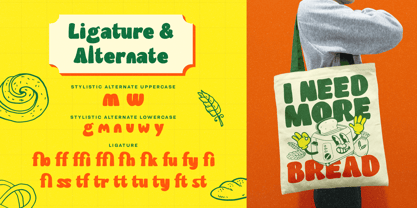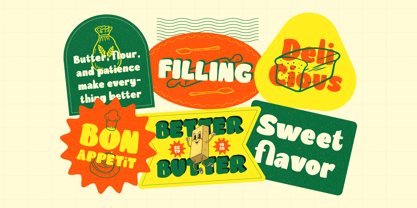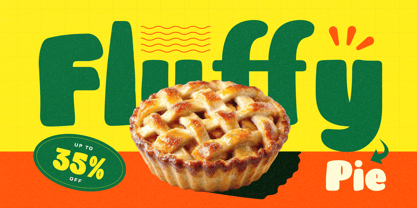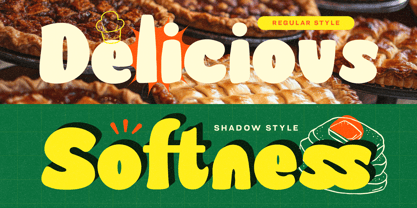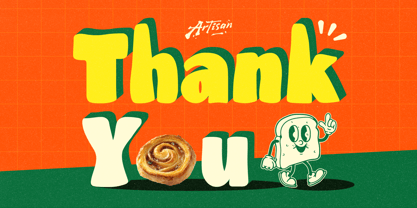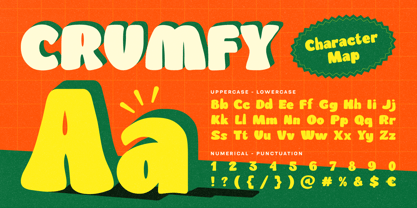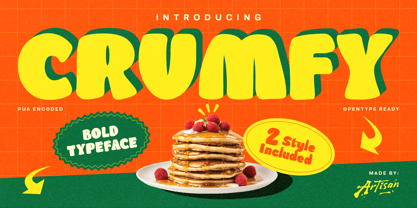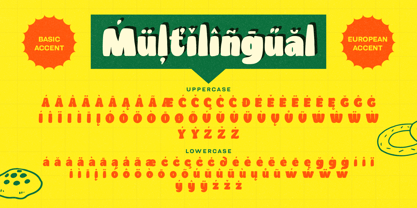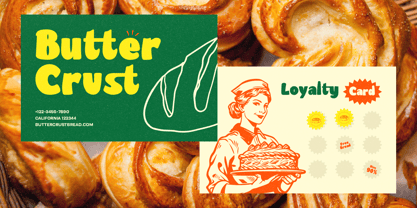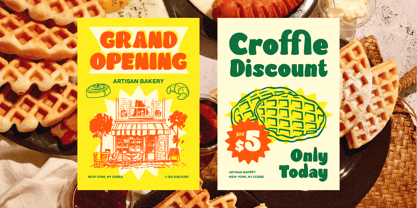
Crumfy
by Artisan Themes
The Crumfy Font Family was designed by Meidy Meichico and published by Artisan Themes. Crumfy contains 2 styles and family package options. More about this family
Crumfy is a bold, chunky display font with a soft and delicious personality. Inspired by artisan bakeries, warm pastries, and retro food packaging, this typeface brings a cheerful and appetizing feel to any design. With its thick curves and rounded shapes, Crumfy looks friendly, fun, and full of character. It’s perfect for eye-catching headlines and branding that needs a sweet, standout touch. This font comes in 2 styles: Regular and Shadow, giving you more flexibility to create layered, dimensional typography. Crumfy also includes ligatures and stylistic alternates, making your text look more natural and playful. Plus, it supports multilingual characters, so you can use it for international projects. Perfect For: Bakery & café branding, Food packaging, Posters & flyers, Social media graphics, Logo design, Merchandise (tote bags, stickers, labels), Retro or playful brand identity Features: A - Z set (Uppercase & Lowercase), Number, Punctuation, Alternates, Ligatures, Multilingual
Designers: Meidy Meichico
Foundry: Artisan Themes